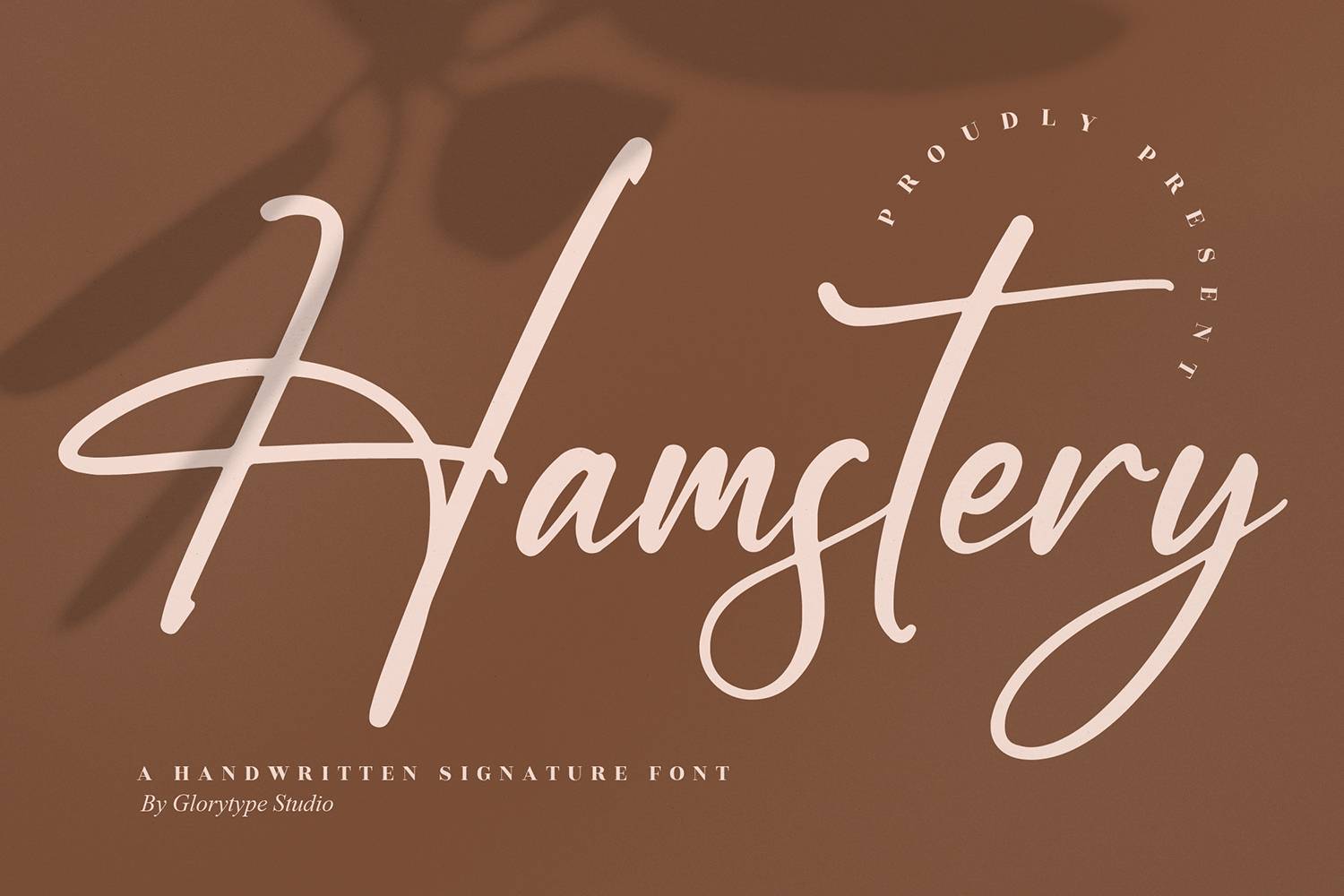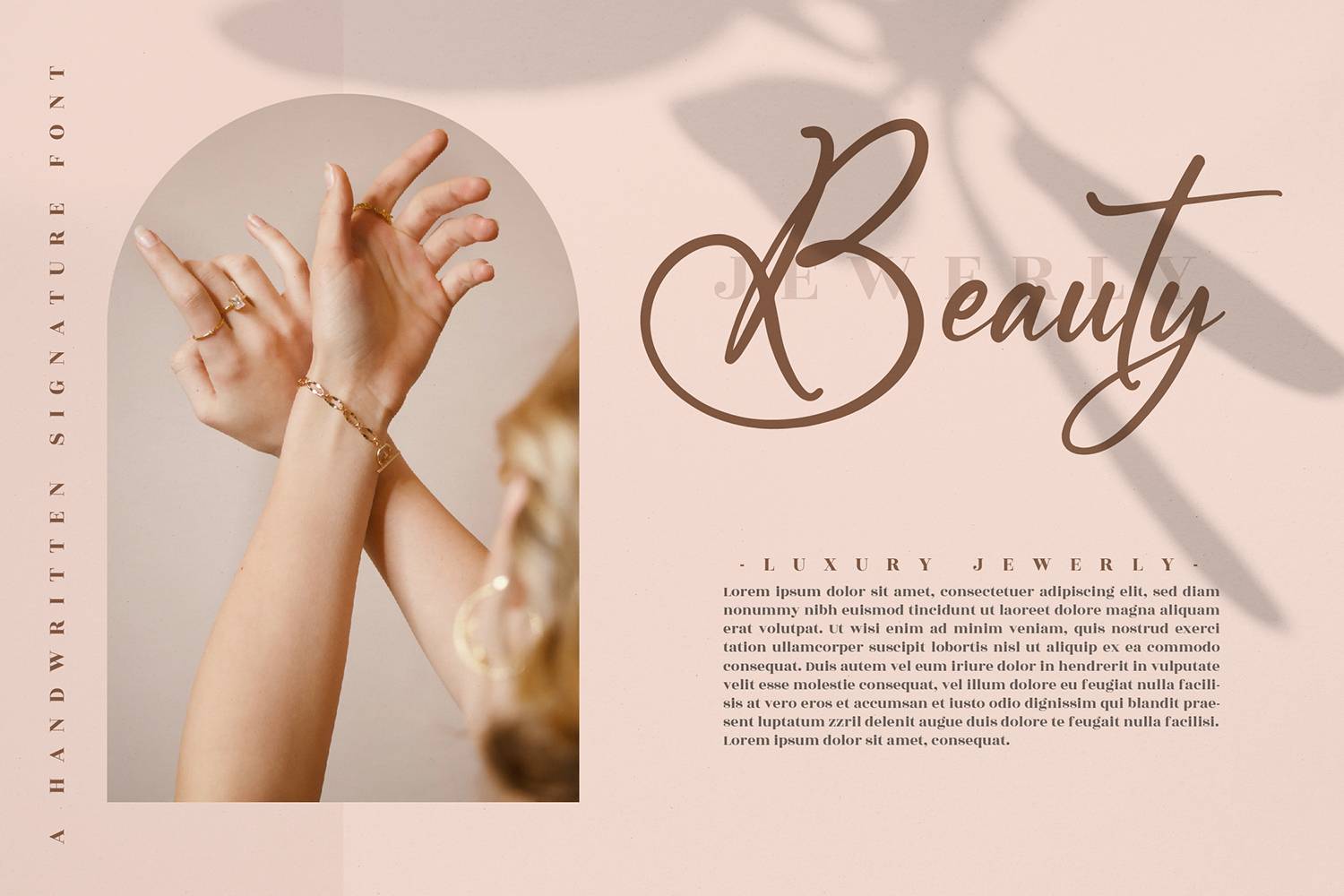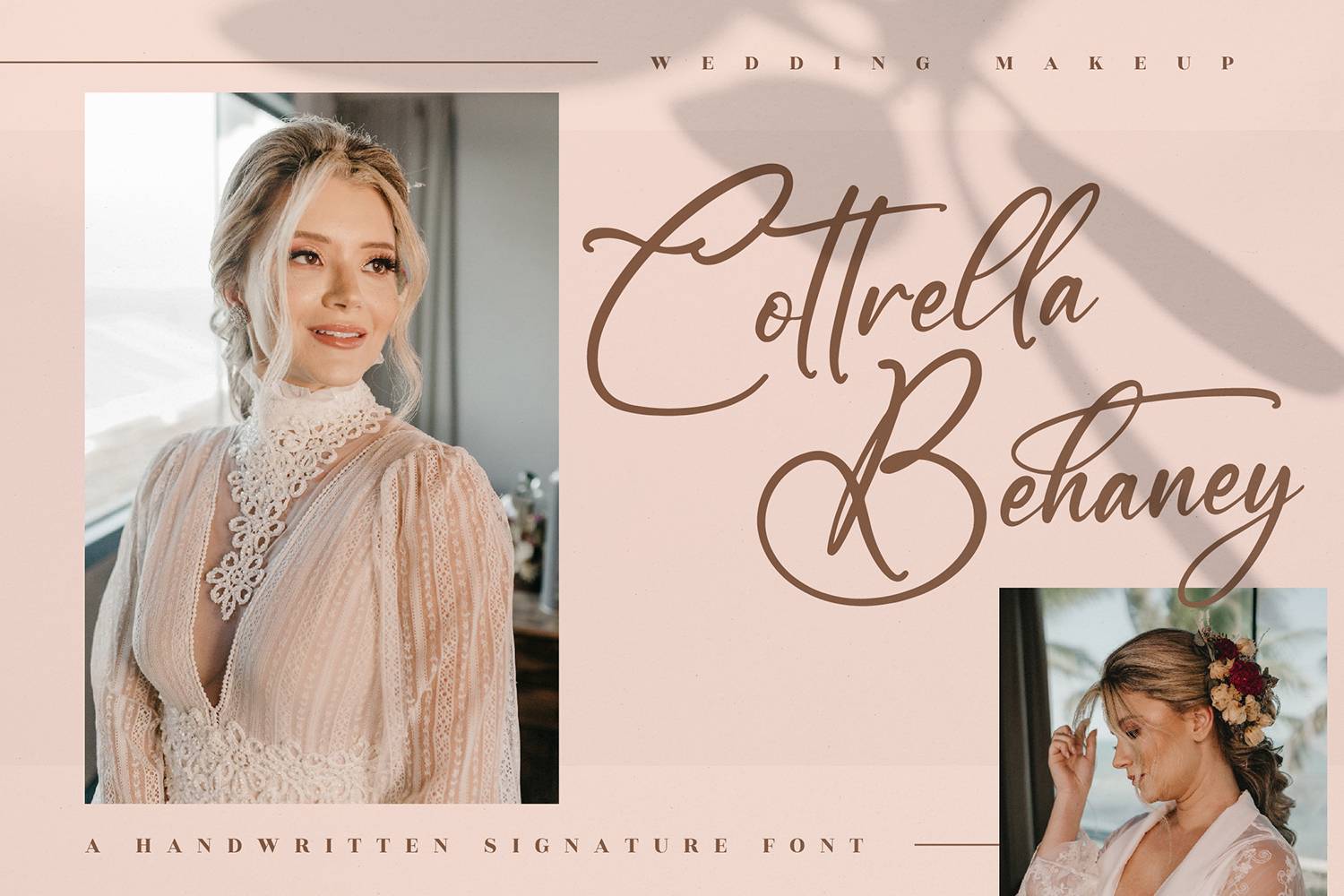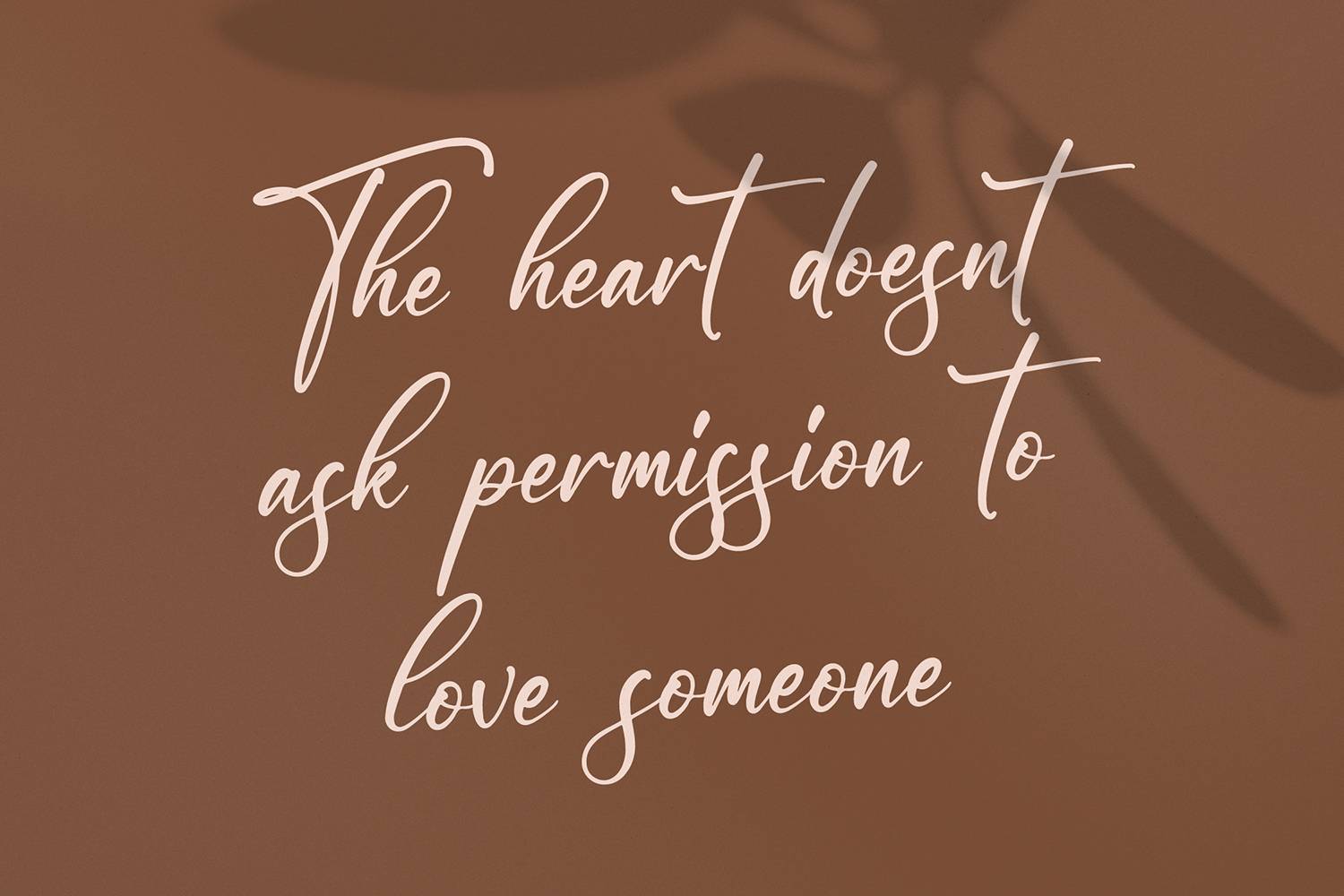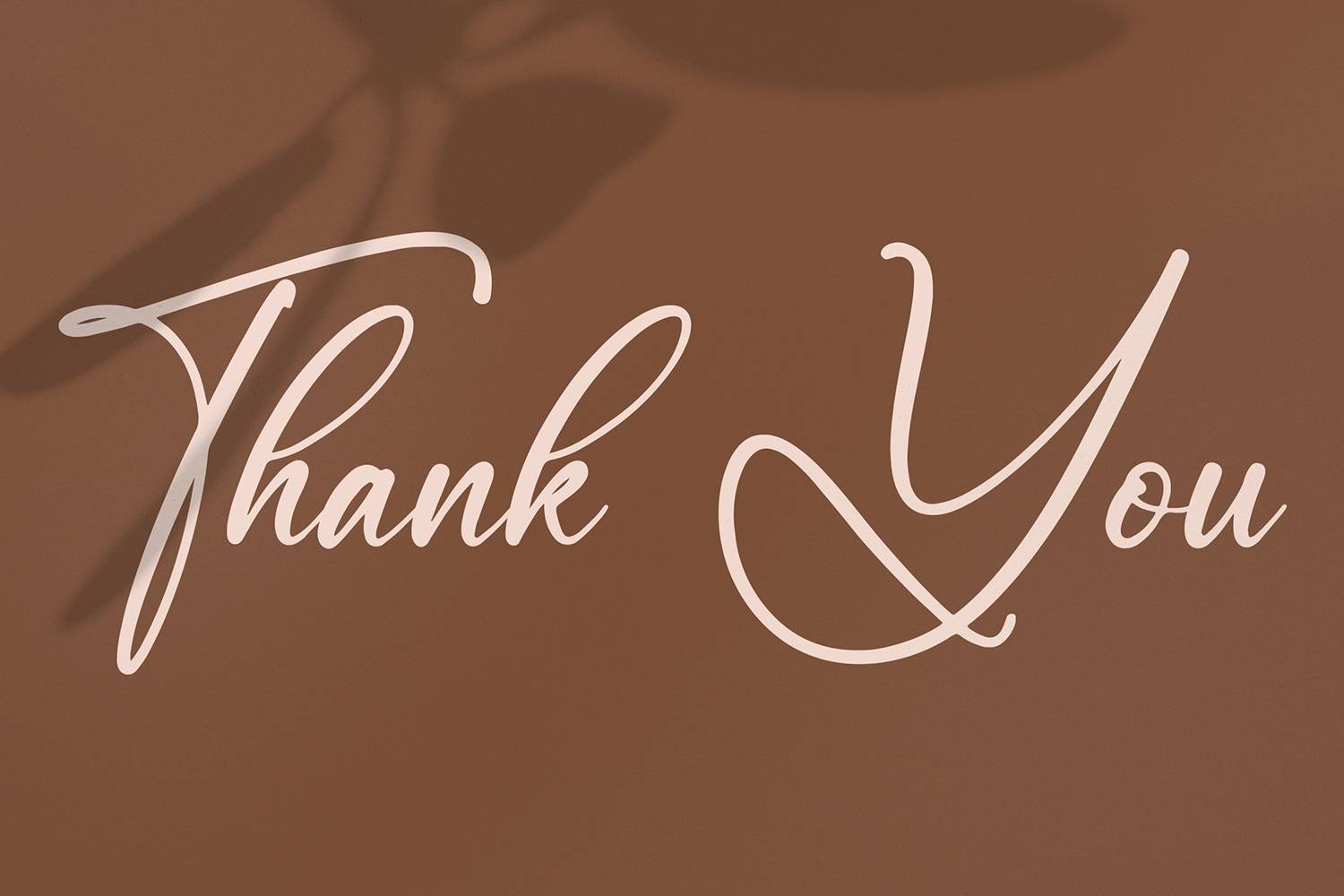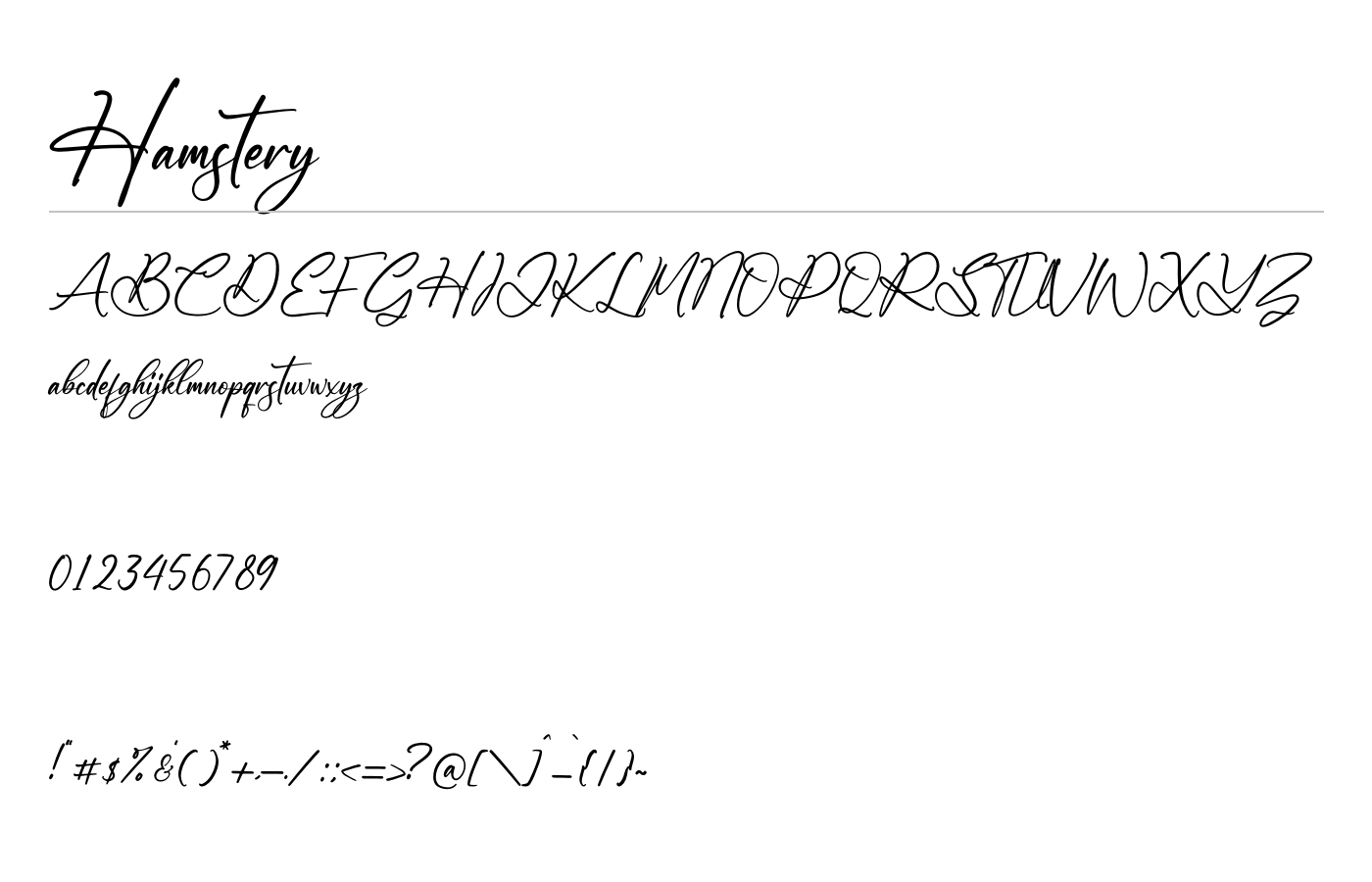
Hamstery is a delicate, elegant script font with a natural, handwritten feel characterized by its fluid strokes and graceful letterforms. It features slender, flowing lines with subtle variations in thickness, making it perfect for sophisticated branding, invitations, and feminine design projects. This font works well when you want to convey charm, elegance, and a personal touch in headlines, logos, or decorative text.
Hamstery Font
About Hamstery Font